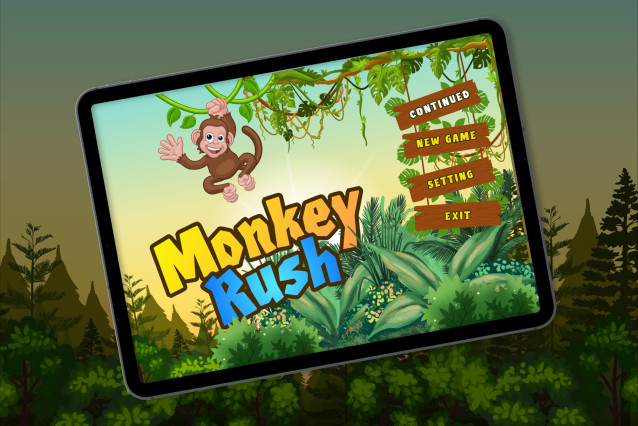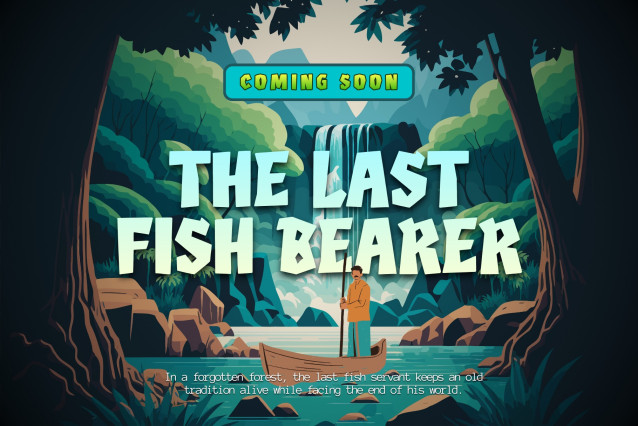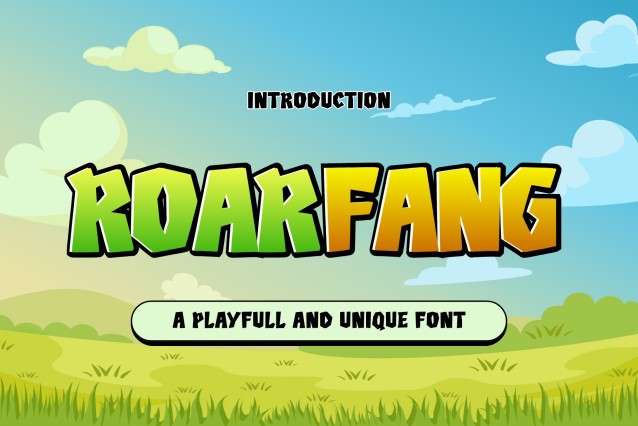
Roar Fang Font
Roar Fang Font is a playful and unique display font with bold, quirky shapes that bring fun and character to your designs. Its expressive letterforms create a lively and energetic feel, making it perfect for kids projects, creative branding, posters, logos, packaging, and eye-catching headlines. Roar Fang adds a touch of wild charm and joyful personality to any creative work.